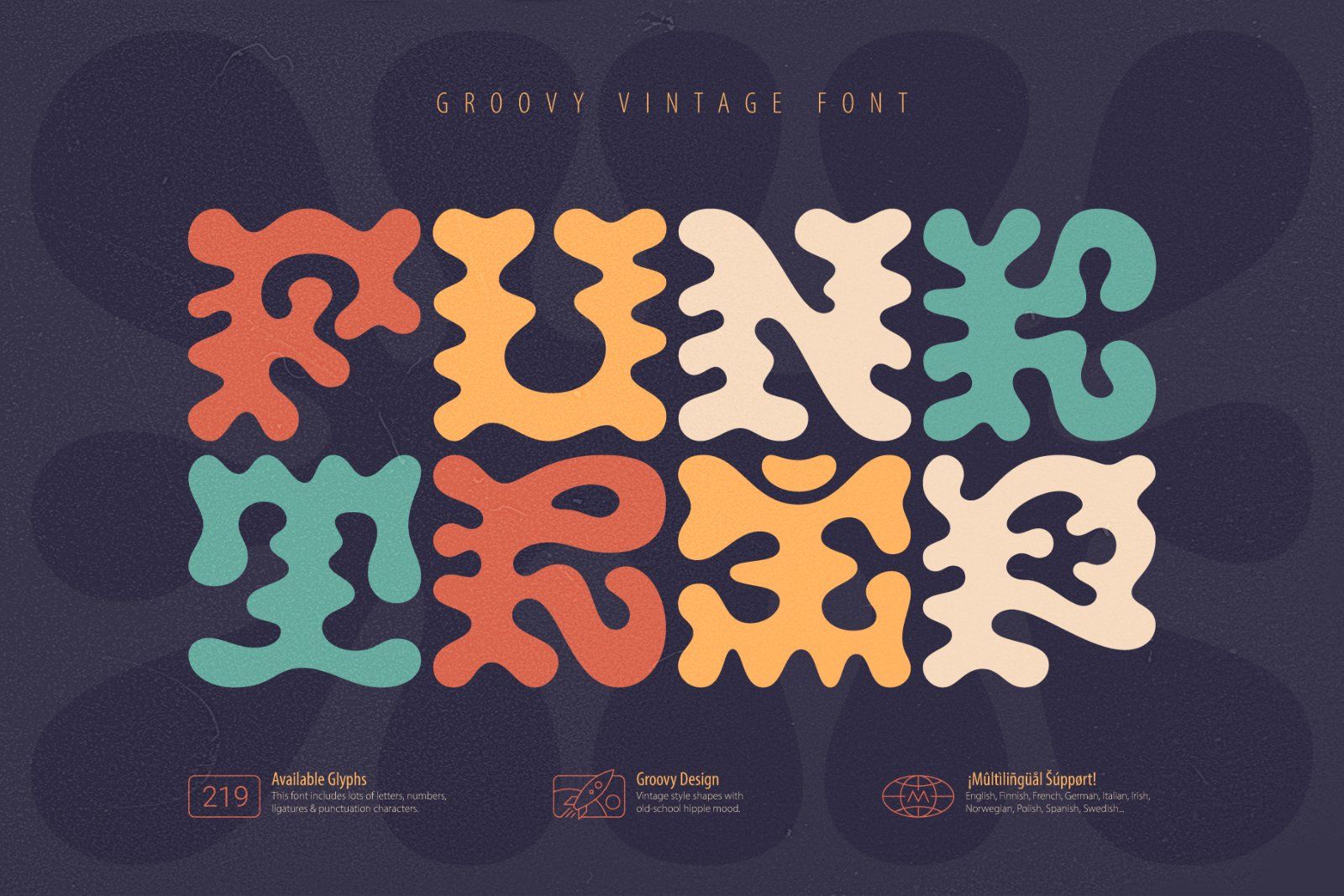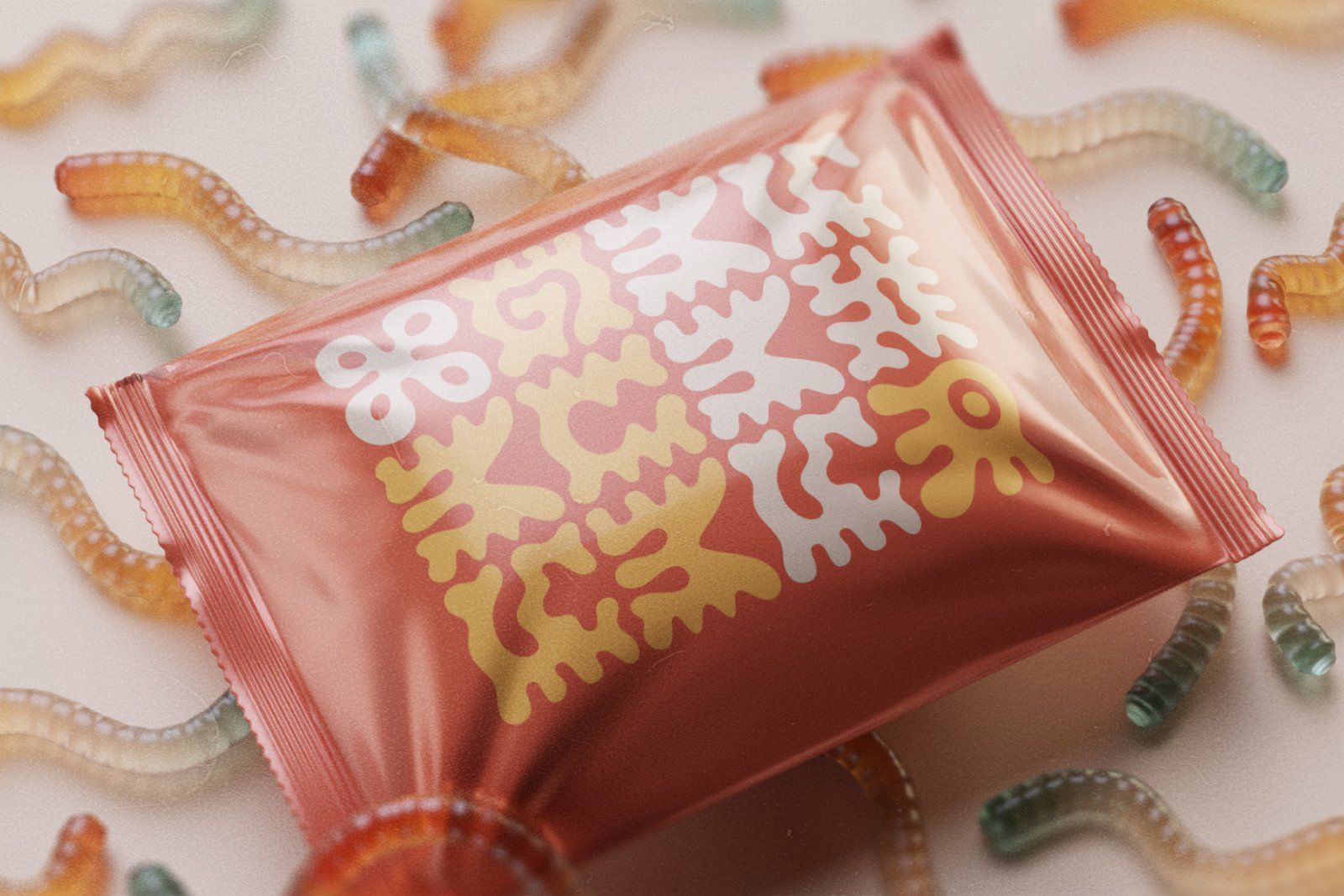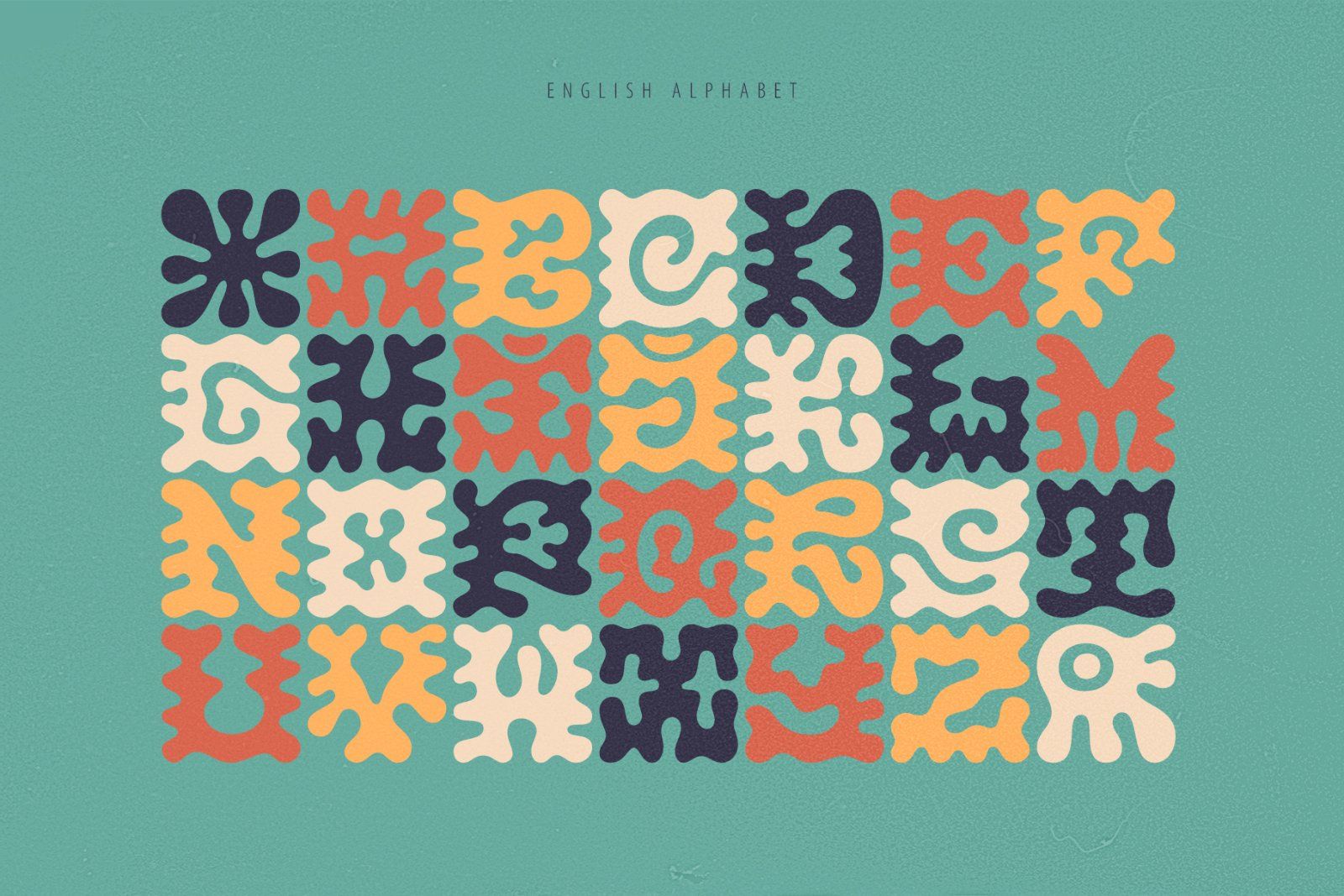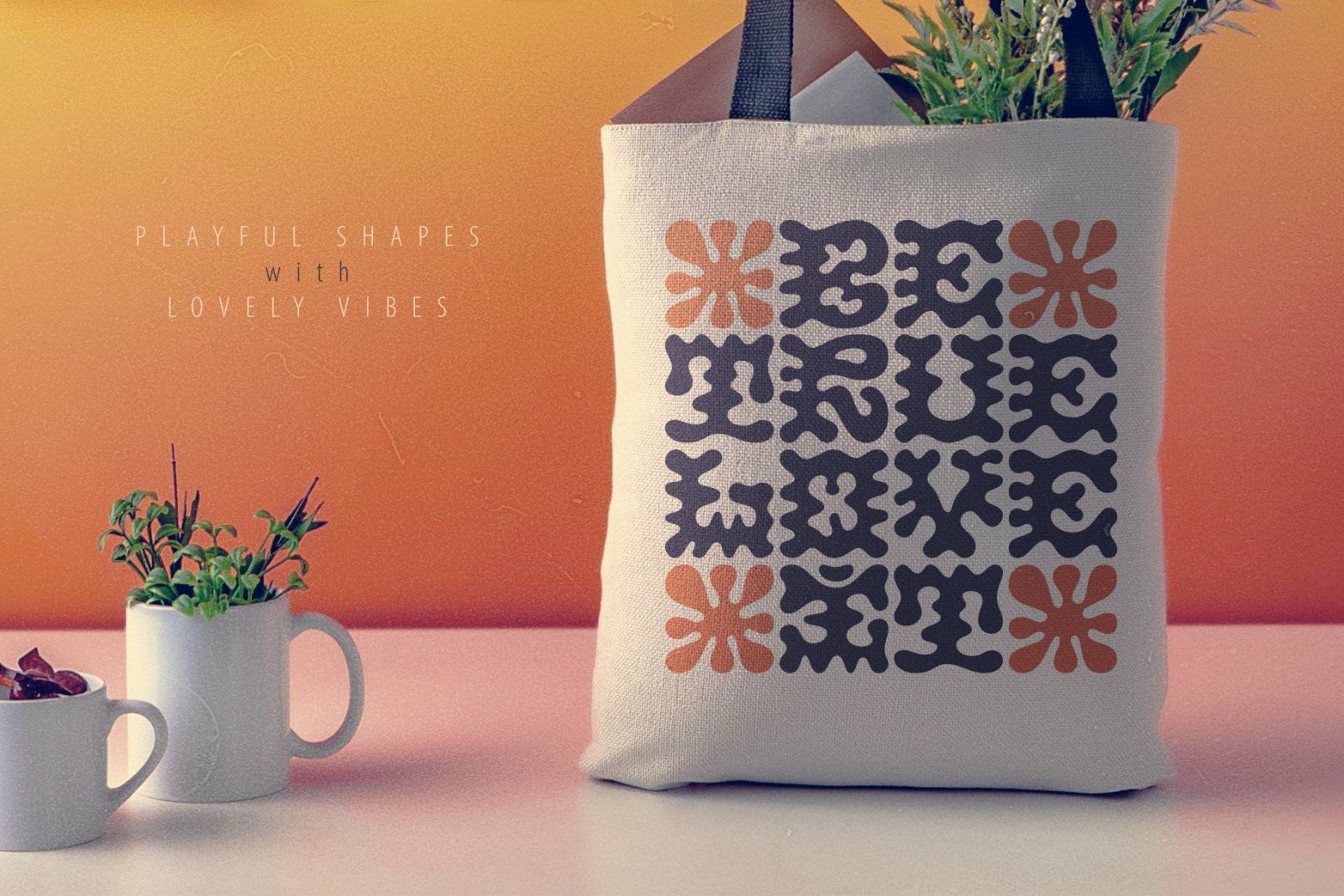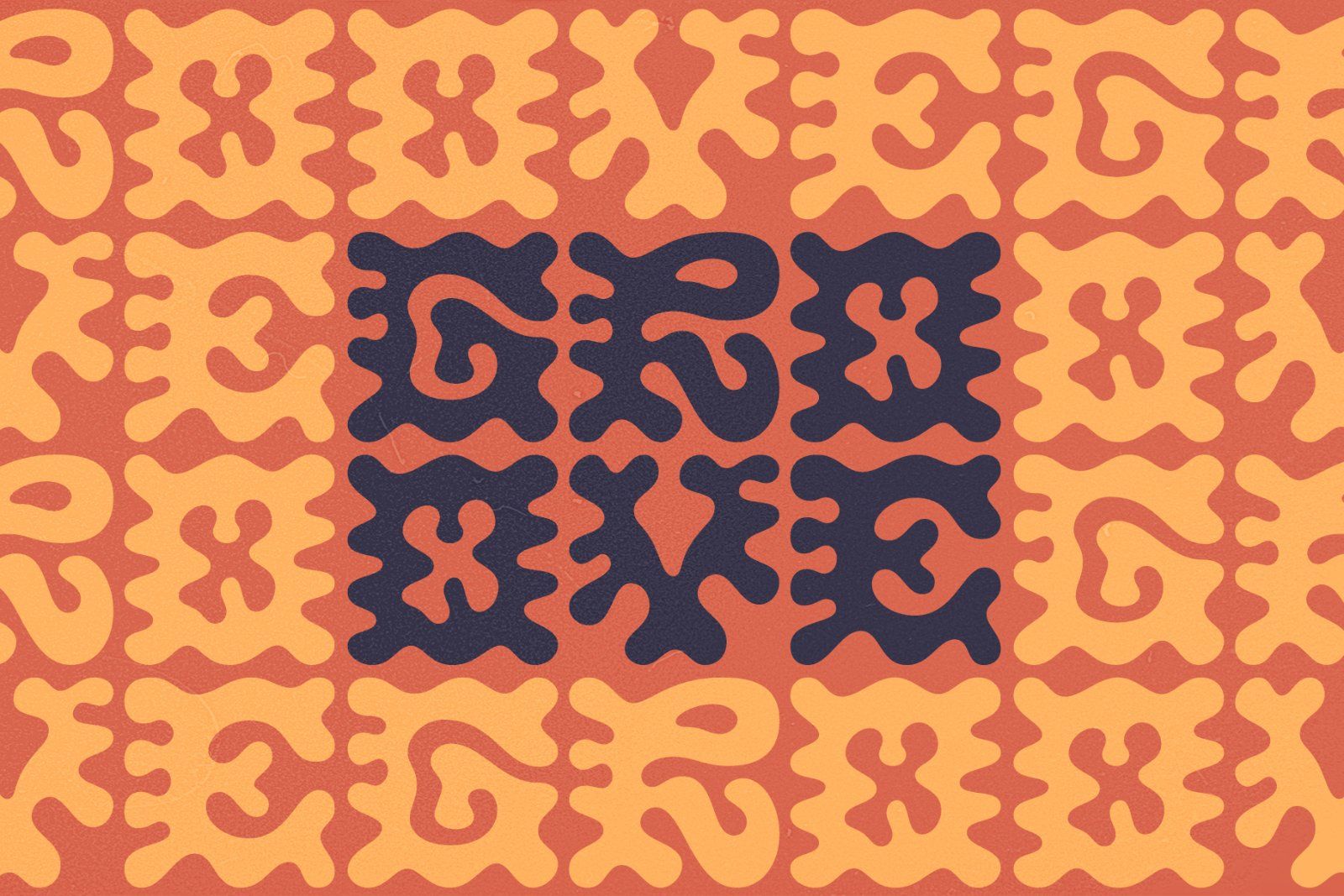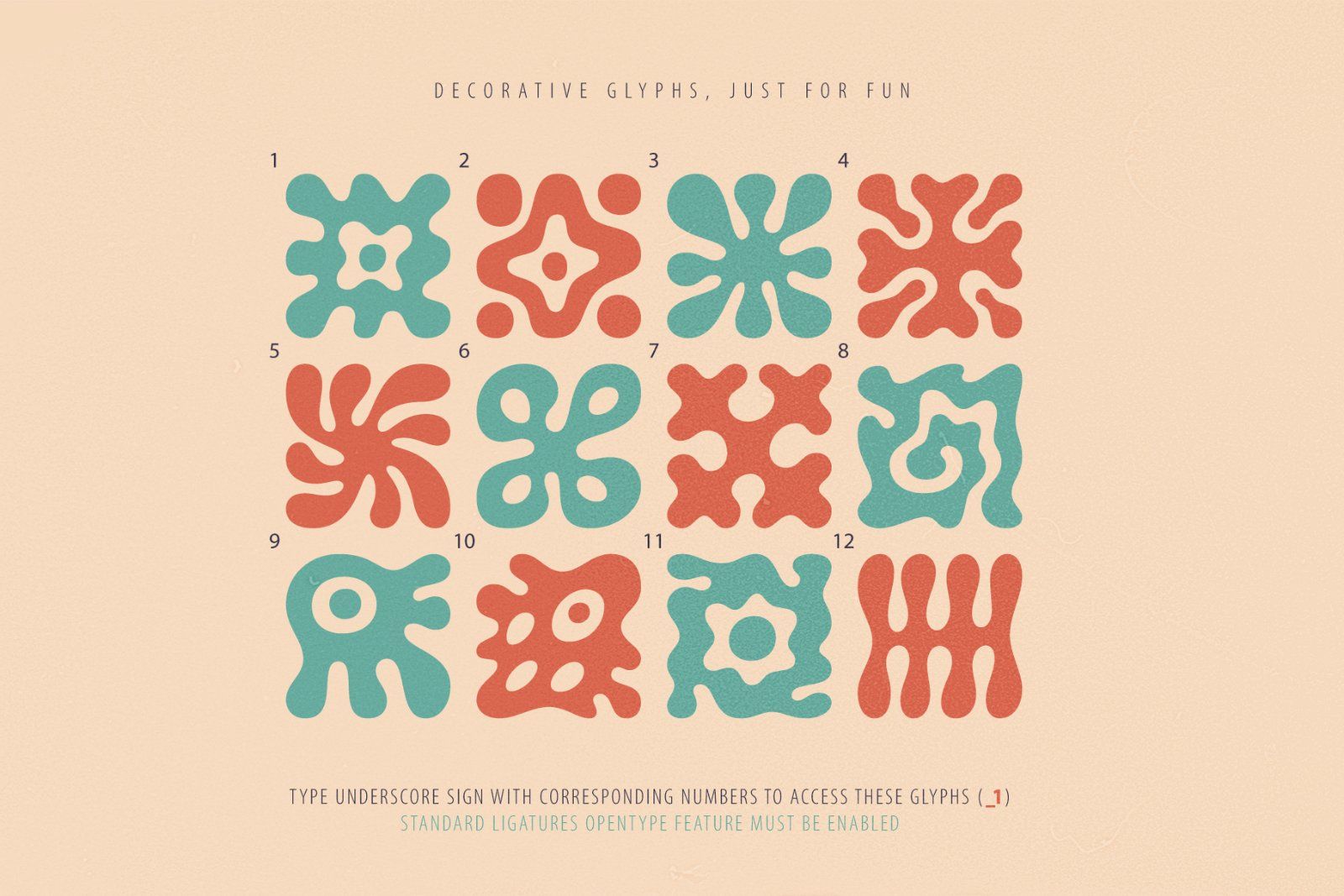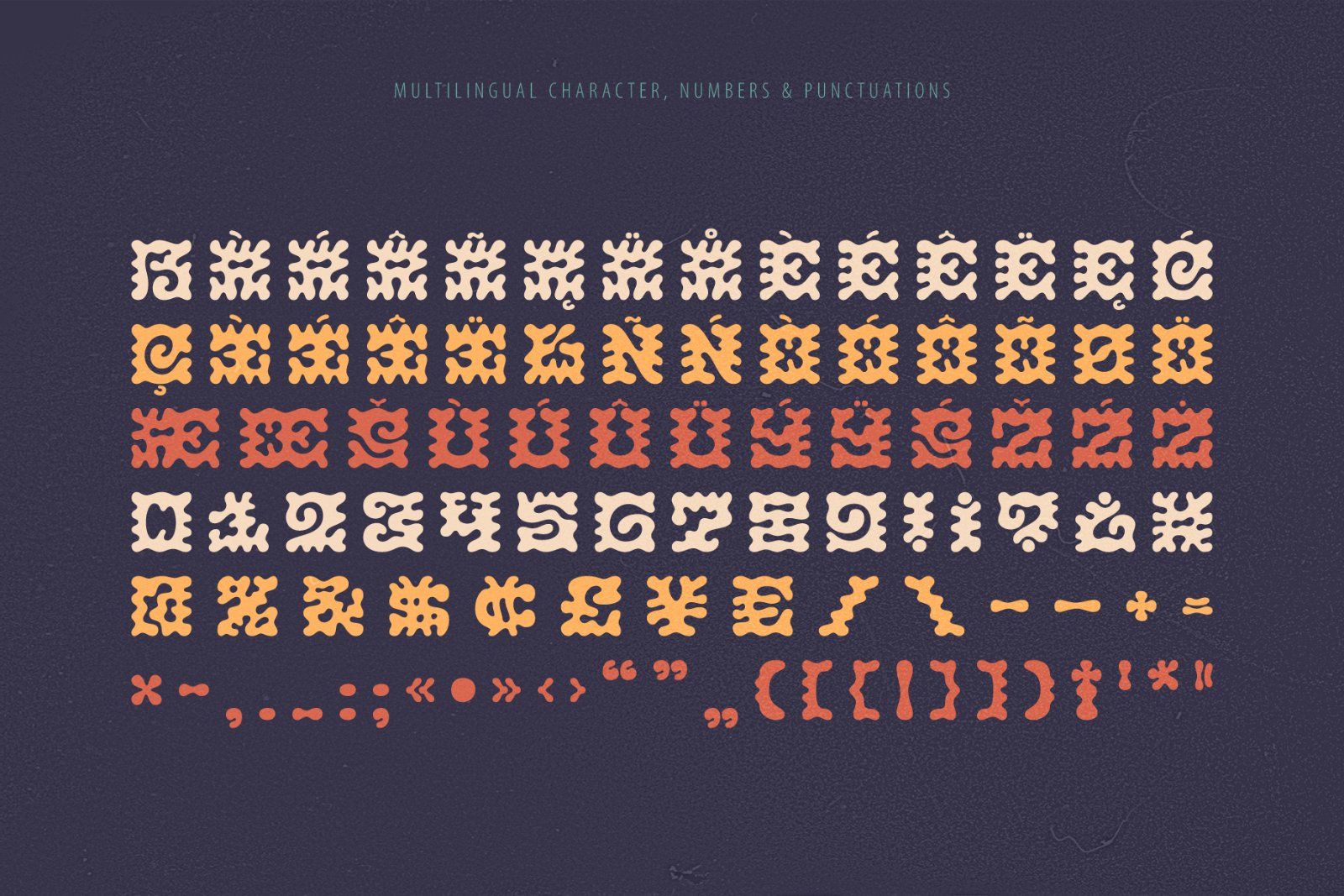
Hey, check out Funk Trip — a vintage font with groovy vibes and an original, wiggly shape. It is an all-caps typeface where most characters are designed to fit a square, helping you create lettering with a beautiful, pattern-like style. It's perfect for vintage hippie-style art or kid-themed designs.
Funk Trip also includes 12 extra characters with abstract shapes. These are accessible via the Standard Ligatures OpenType feature — simply type an underscore followed by the corresponding number to reveal these special characters.
Funk Trip offers a wide multilingual support — check the screenshots to view the full character set.